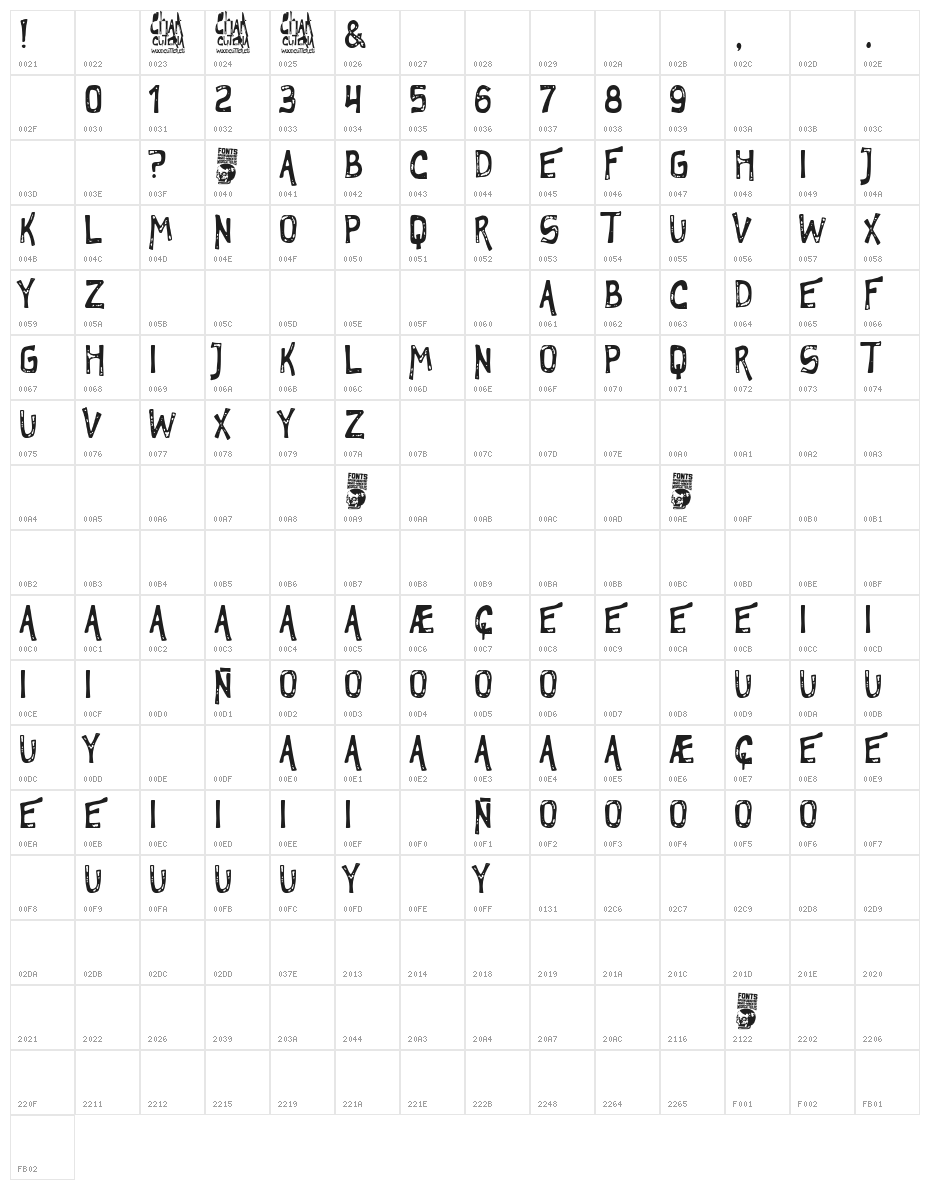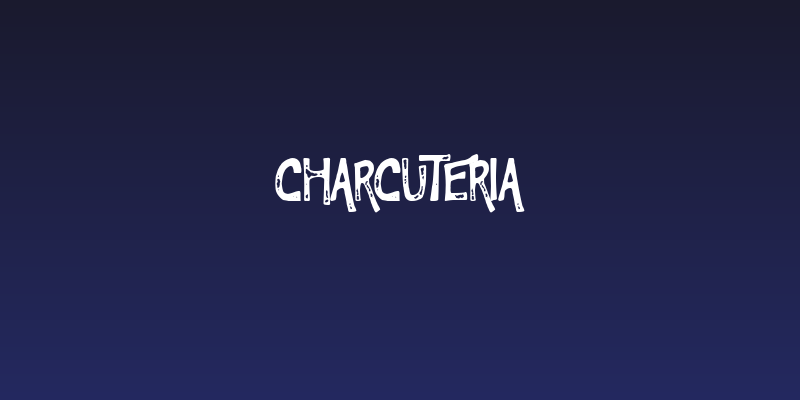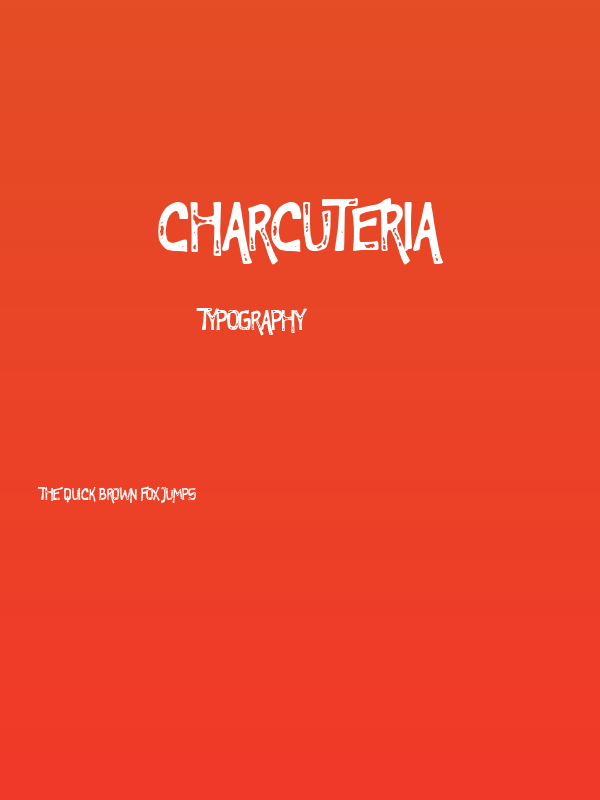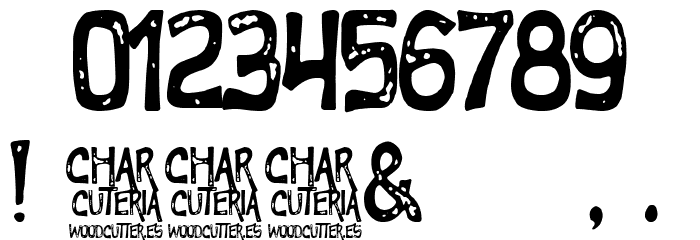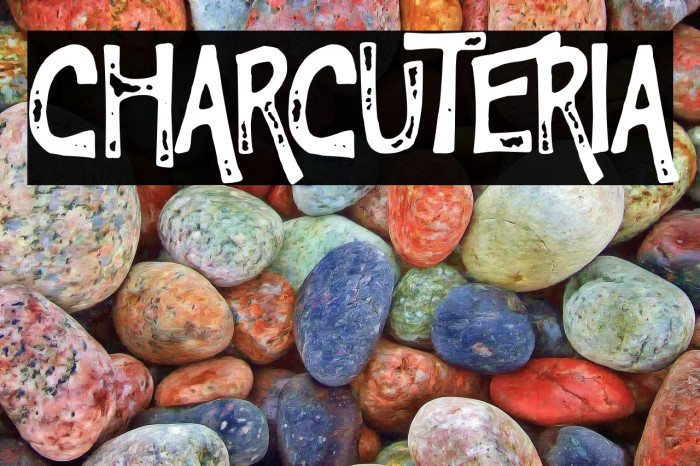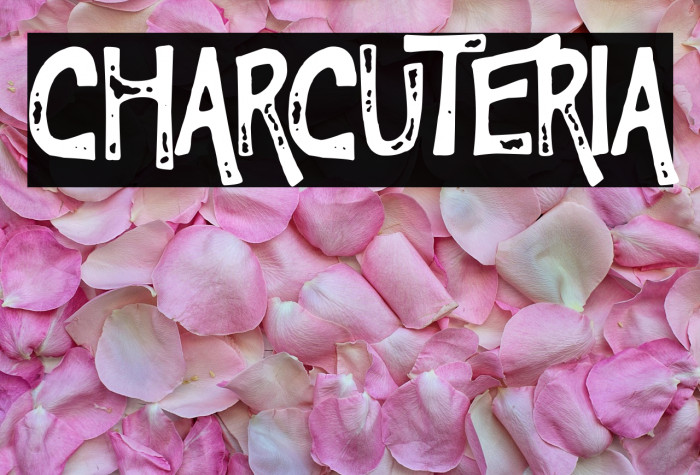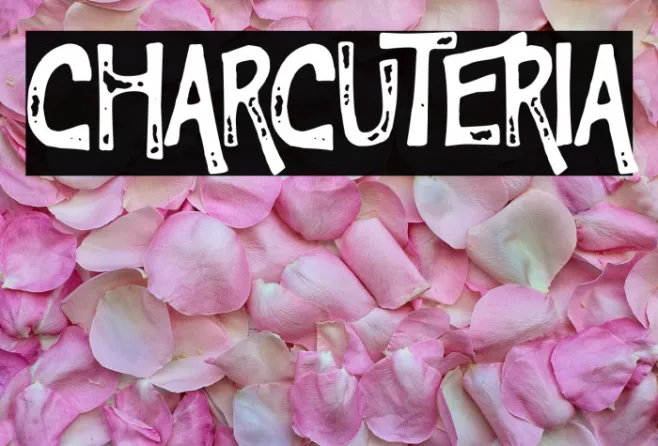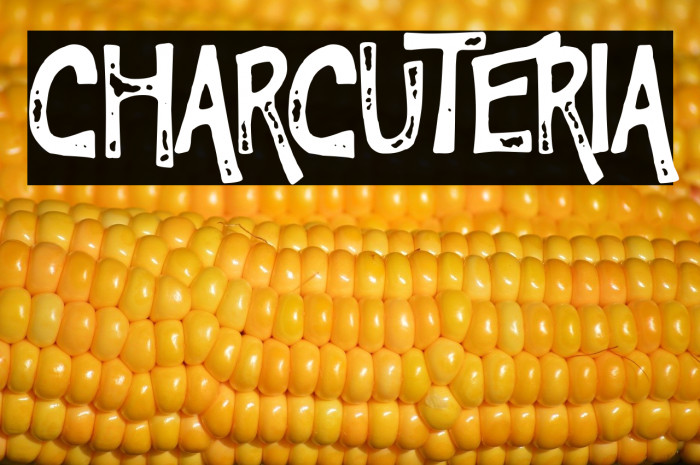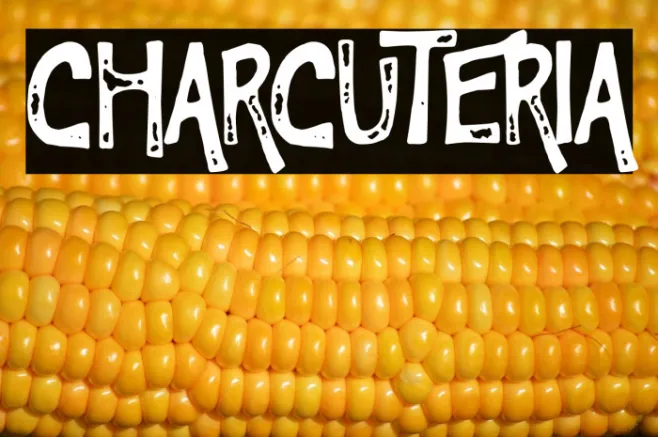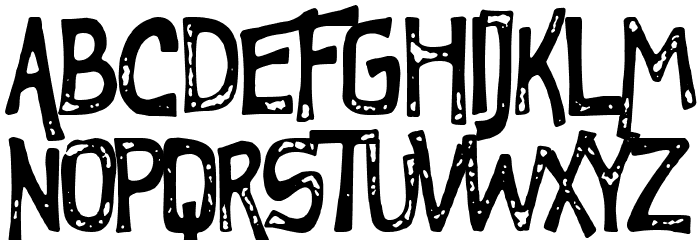
Charcuteria Font
Charcuteria Description
This font features a playful and quirky design with irregular, hand-drawn characters. Each letter is adorned with small, decorative dots and uneven strokes, giving it a whimsical and artistic appearance. The style is bold and eye-catching, making it suitable for creative and informal projects. The characters are slightly condensed, with a medium contrast in stroke thickness, adding to its unique charm. This font is ideal for projects that require a fun and engaging visual element.
| Overall Style | Whimsical |
| Proposed Projects | Ideal for children's books, playful posters, creative branding, and artistic invitations. |